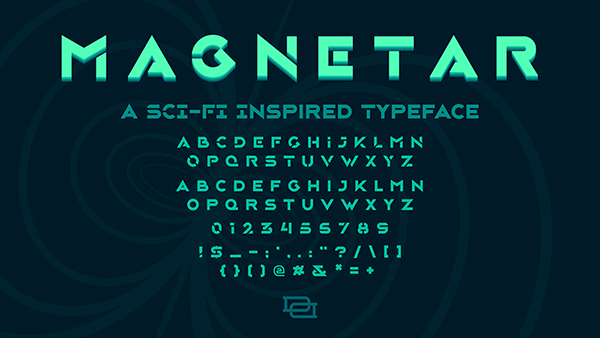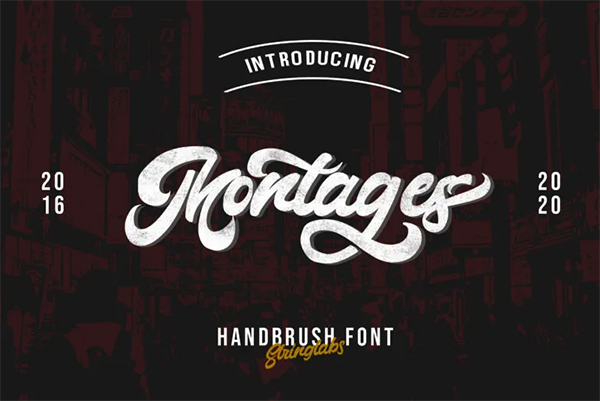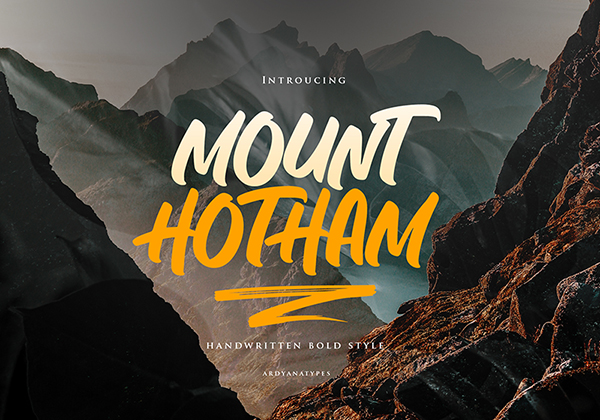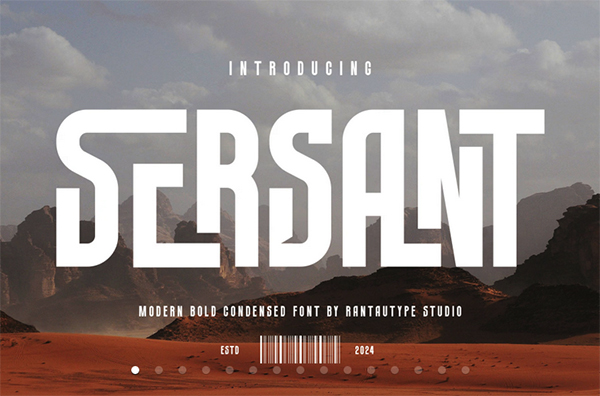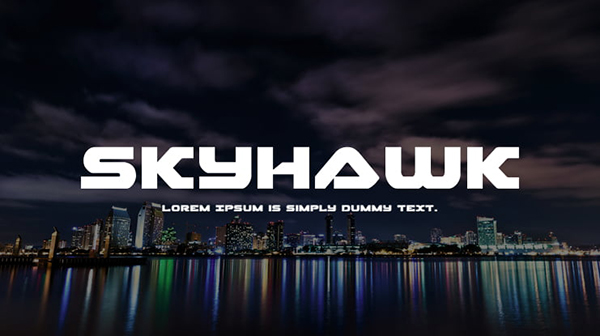
5 Fonts for Race Wraps Vol. 23
5 Fonts for race wraps and motorsports graphic design industry vol 23
Need some fonts for your race wraps or motorsports themed design projects? Download these 5 fonts to help get your creativity rolling Perfect for racing numbers, sponsors and other racing graphic design projects!